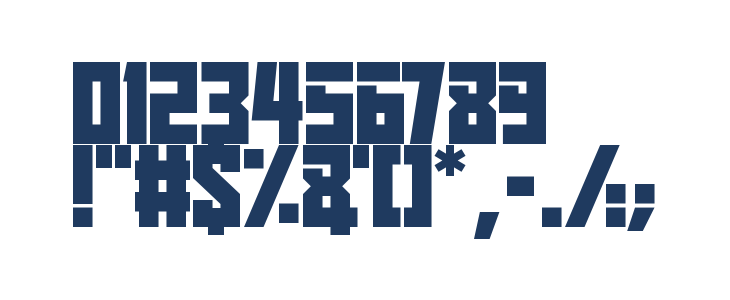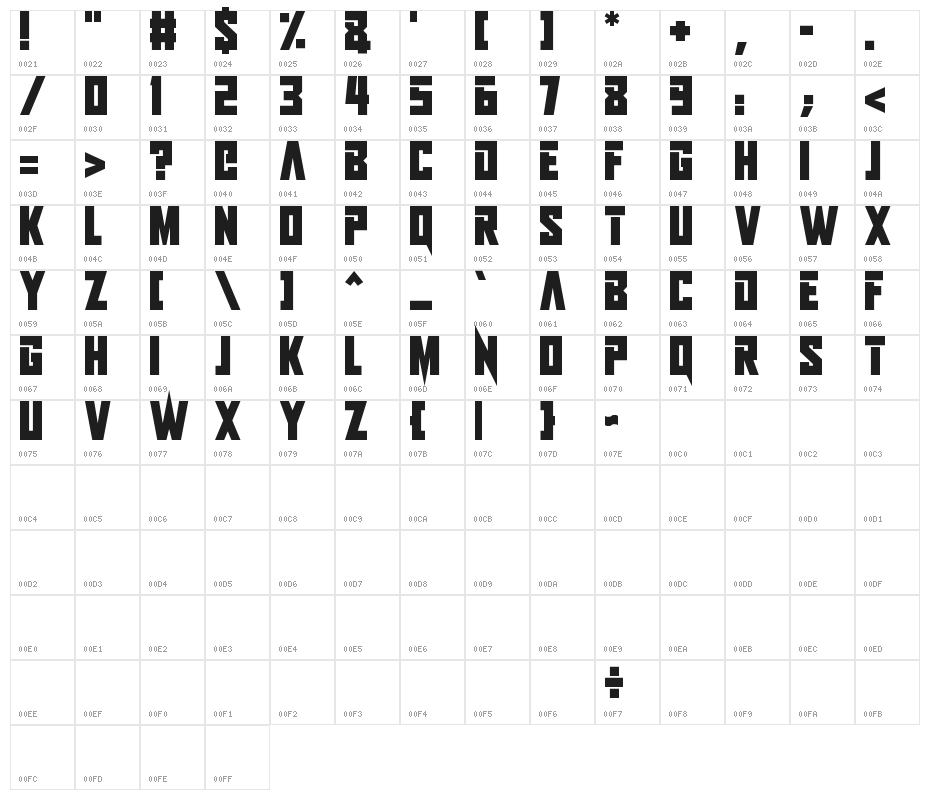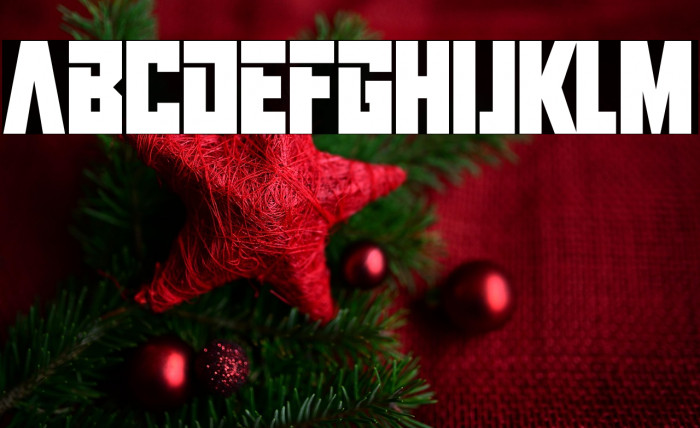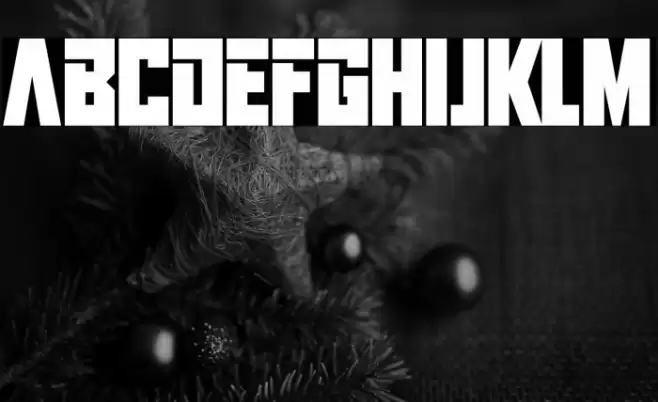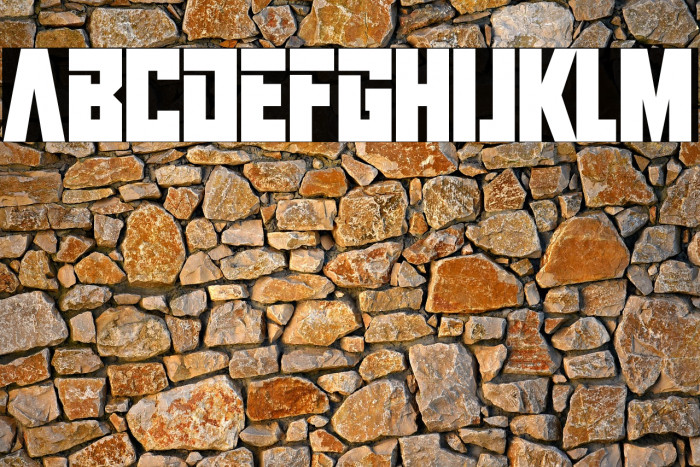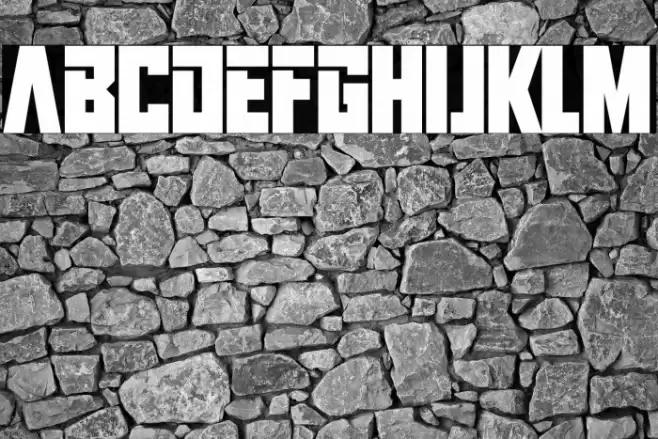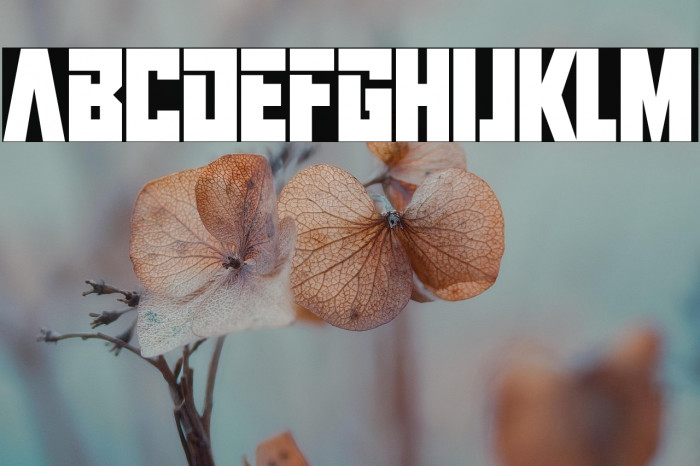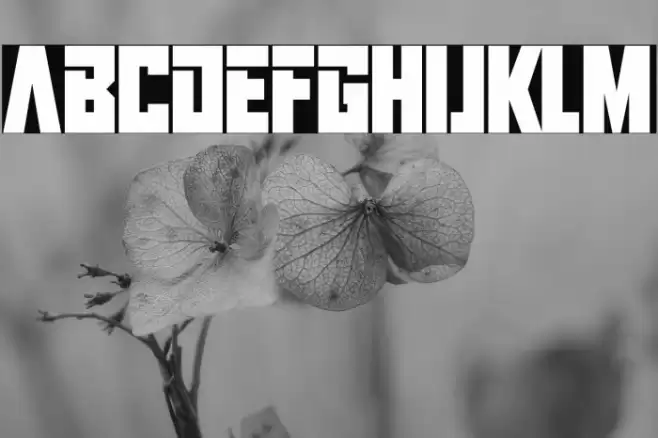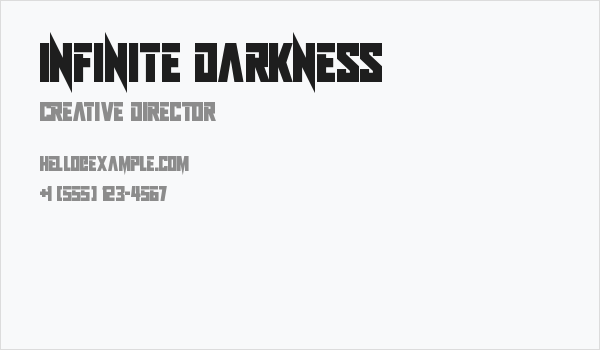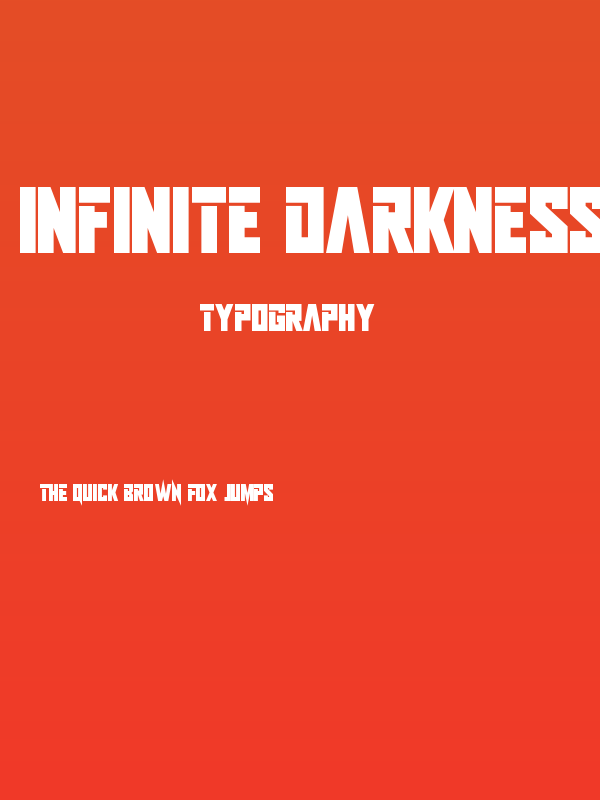
Infinite Darkness Font
Infinite Darkness Description
This font features a bold, angular design with sharp edges and a futuristic aesthetic. The characters are blocky and geometric, giving them a strong presence. The uppercase letters are particularly striking, with some characters incorporating unique cutouts and angles that add to the font's dynamic appearance. The numbers and special characters maintain this bold style, ensuring consistency across all glyphs. This font is ideal for projects that require a modern and edgy look, such as video game titles, movie posters, or branding for tech companies.
| Proposed Projects | Video game titles, movie posters, tech branding, and promotional materials. |